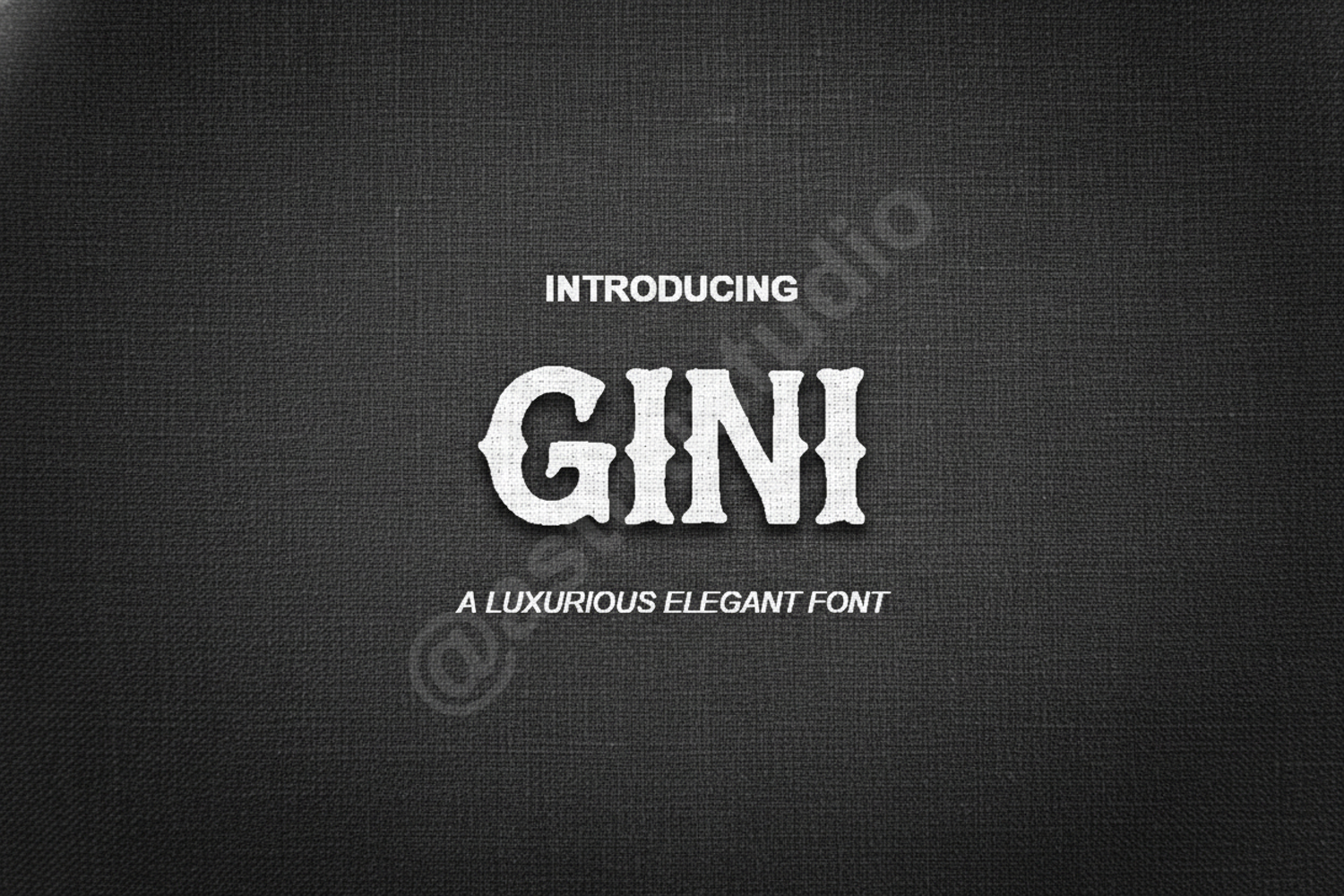
Gini - Elegant and Sophisticated Modern Serif
Gini
Experience the perfect blend of timeless elegance and contemporary flair with Gini. This premium serif font is meticulously crafted to bring a touch of luxury and professional polish to any creative project. Its clean lines, balanced proportions, and refined curves make it a versatile choice for designers seeking a high-end aesthetic that stands out.
- Full set of uppercase and lowercase characters
- Comprehensive numbers and punctuation
- Multilingual support for international design needs
- Branding and Identity: Create memorable logos and cohesive brand systems for high-end clients.
- Editorial Design: Perfect for high-fashion magazines, sophisticated headlines, and legible body text.
- Wedding Stationery: Add a touch of class to invitations, save-the-dates, and event menus.
- Social Media: Elevate your digital presence with stylish quotes, banners, and promotional graphics.
- Product Packaging: Ideal for luxury goods, cosmetics, and lifestyle brand packaging.